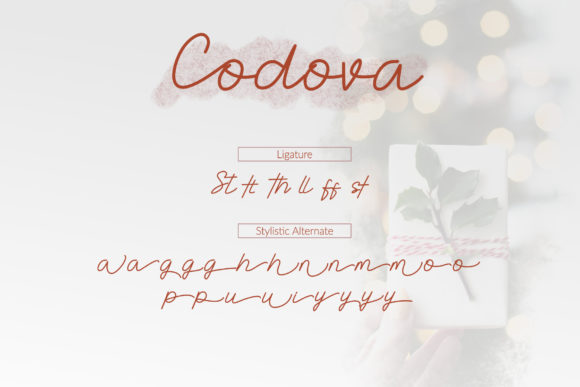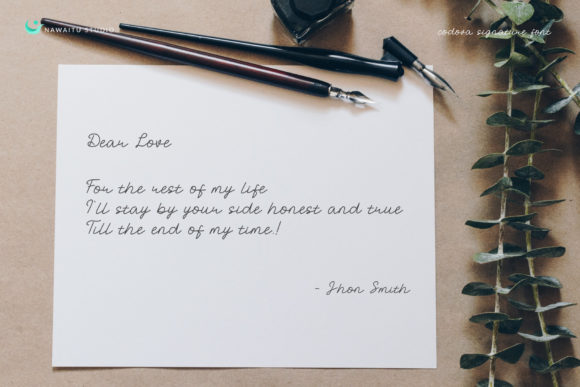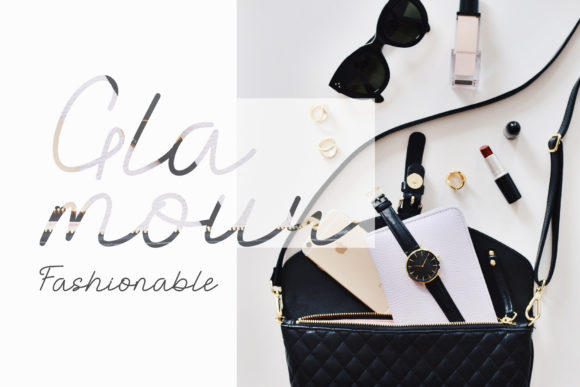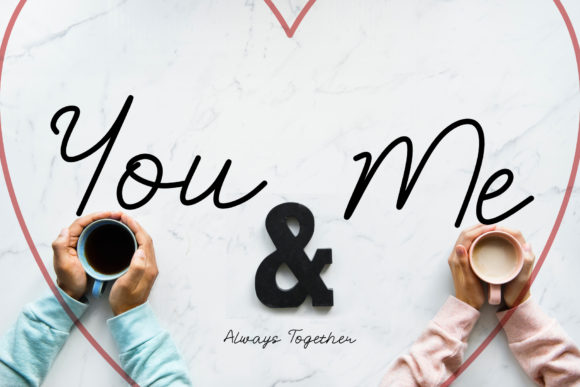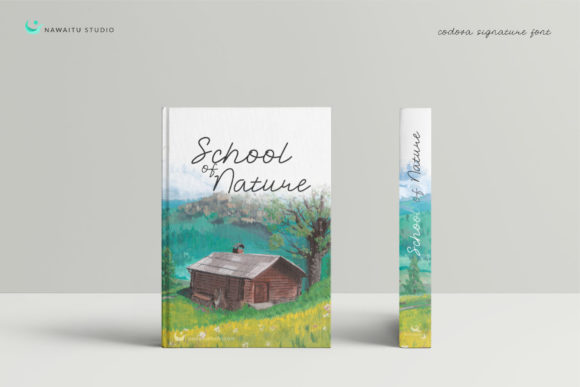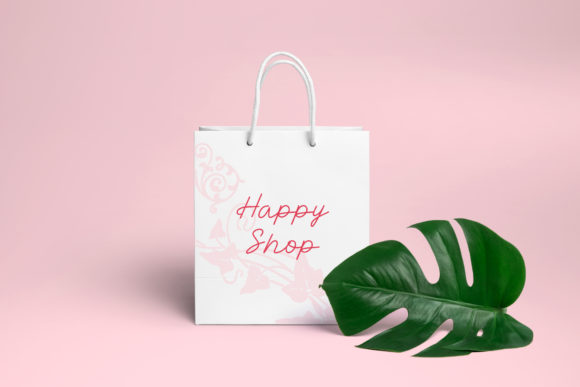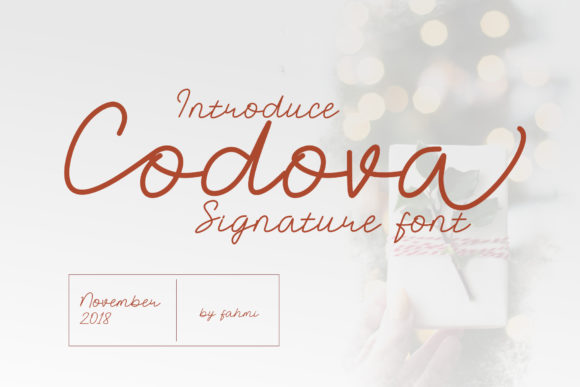
Codova Font: Elevate Your Design with Elegance and Flair
Are you on the hunt for a font that can instantly elevate your design game? Look no further than the Codova Font. This funtastic, lovely, and elegant signature script is packed with energy, allowing you to create stunning handwriting typography with style in an instant. Whether you’re a designer, crafter, or simply someone who appreciates beautiful typography, Codova Font is sure to impress.
The Perfect Blend of Elegance and Energy
Codova Font boasts a unique blend of elegance and energy, making it perfect for a wide range of design applications. Its elegant signature script style is reminiscent of handwritten quotes, invitations, and cards, while its energetic vibe adds a touch of playfulness to any design. This font is ideal for designers who want to create beautiful, eye-catching typography that stands out from the crowd.
With Codova Font, the design possibilities are endless. Use it to create:
• Printed quotes that inspire and motivate
• Invitations that set the tone for special occasions
• Cards that showcase your personality and style
• Product packaging that stands out on store shelves
• Headers that add a touch of elegance to your website or blog
What Makes Codova Font So Special?
So, what sets Codova Font apart from other fonts on the market? Here are just a few reasons why designers and crafters love this font:
• Elegant and sophisticated: Codova Font has a refined, sophisticated feel that’s perfect for high-end designs.
• High-energy vibe: This font has a playful, energetic vibe that’s sure to capture the attention of your audience.
• Versatile: Codova Font can be used for a wide range of design applications, from print to digital.
• Easy to read: Despite its elegant, cursive style, Codova Font is surprisingly easy to read, making it perfect for body text and headlines.
Tips for Using Codova Font
To get the most out of Codova Font, here are a few tips to keep in mind:
• Use it sparingly: While Codova Font is beautiful, it can be overwhelming if overused. Use it sparingly to add a touch of elegance to your design.
• Experiment with colors: Codova Font looks stunning in a variety of colors, from bold and bright to soft and pastel.
• Pair it with other fonts: Codova Font pairs beautifully with other fonts, including sans-serif and serif fonts.
In conclusion, Codova Font is a beautiful, elegant signature script that’s perfect for designers and crafters who want to elevate their design game. With its unique blend of elegance and energy, this font is sure to impress. Whether you’re creating printed quotes, invitations, cards, or product packaging, Codova Font is the perfect choice. So why wait? Give Codova Font a try today and see the difference it can make in your designs!
Key Features of Codova Font
Feature Description
Font Style Elegant signature script
Energy Level High-energy vibe
Versatility Suitable for print and digital designs
Readability Easily readable